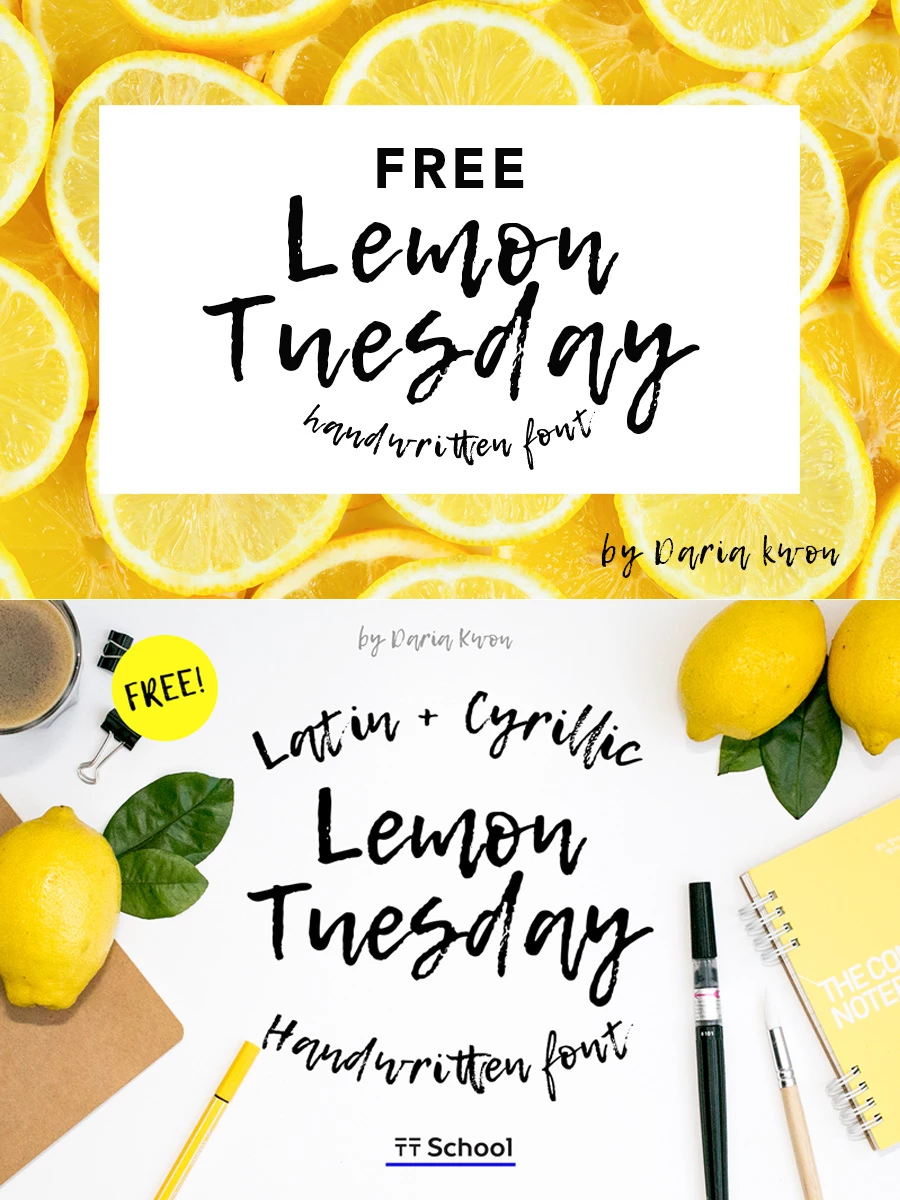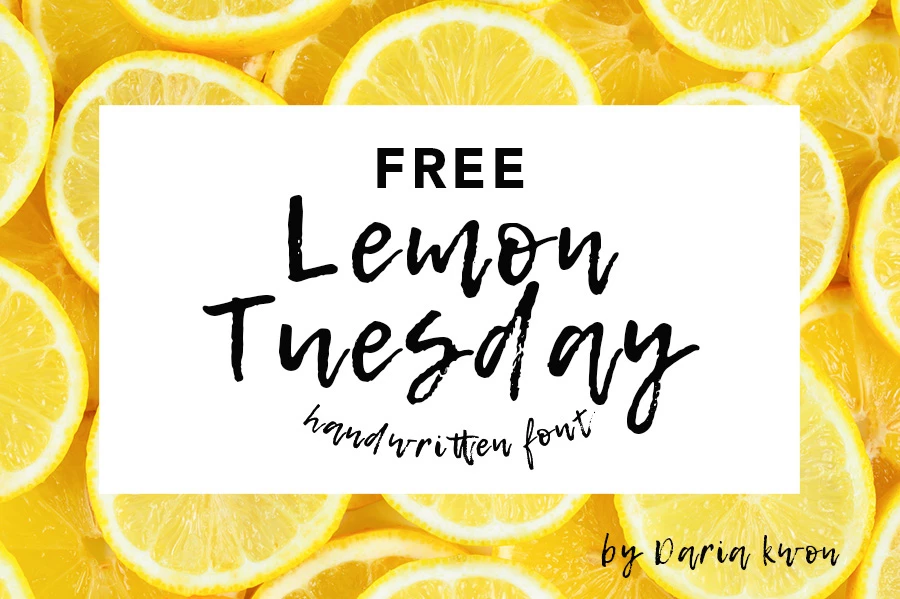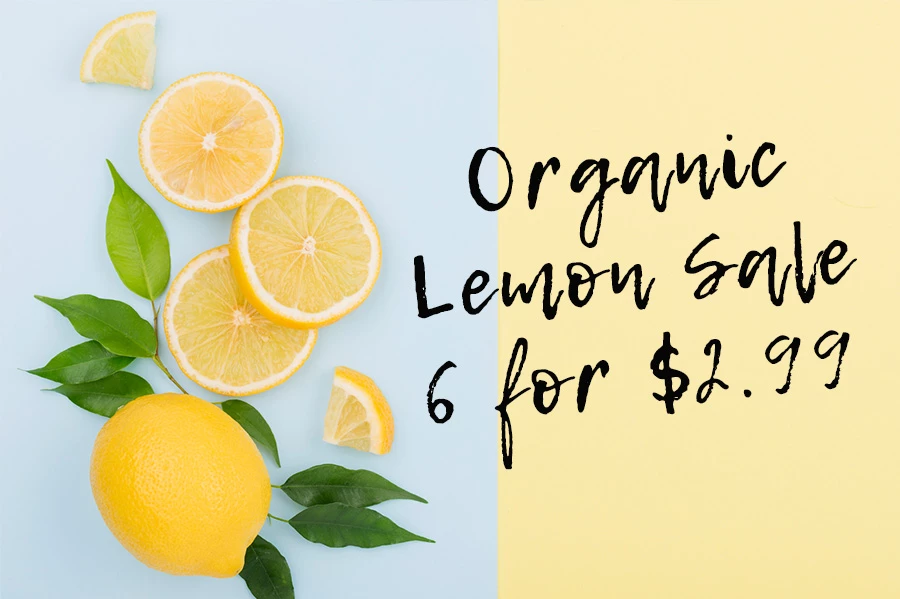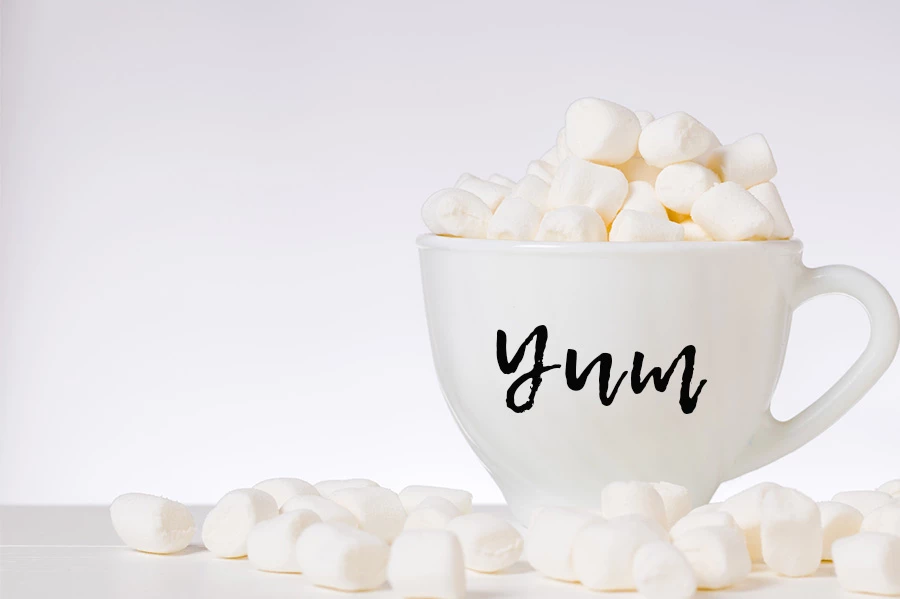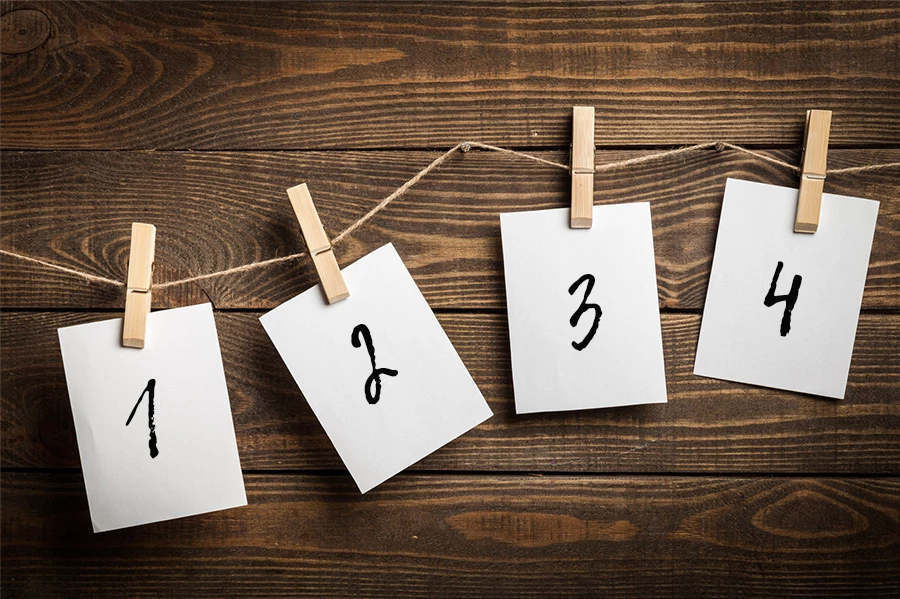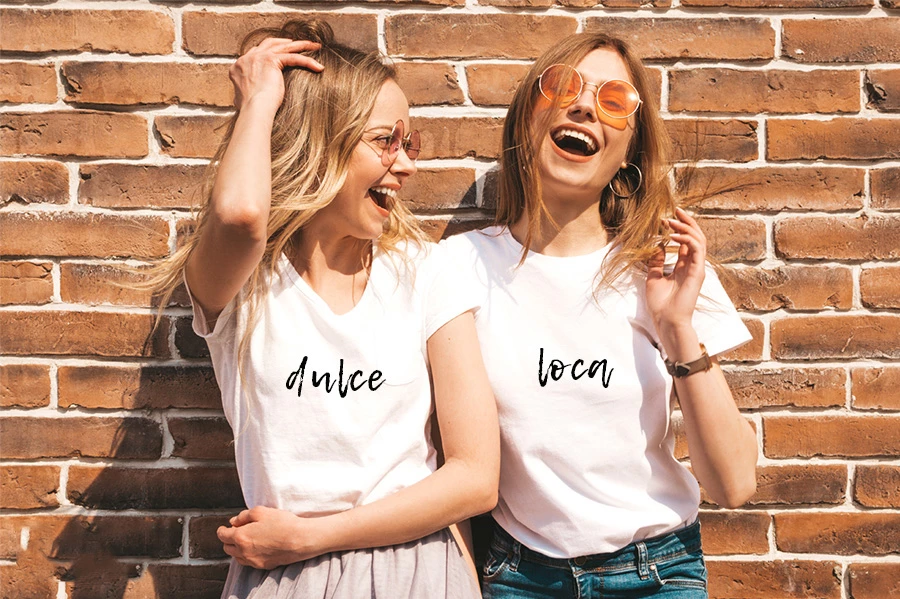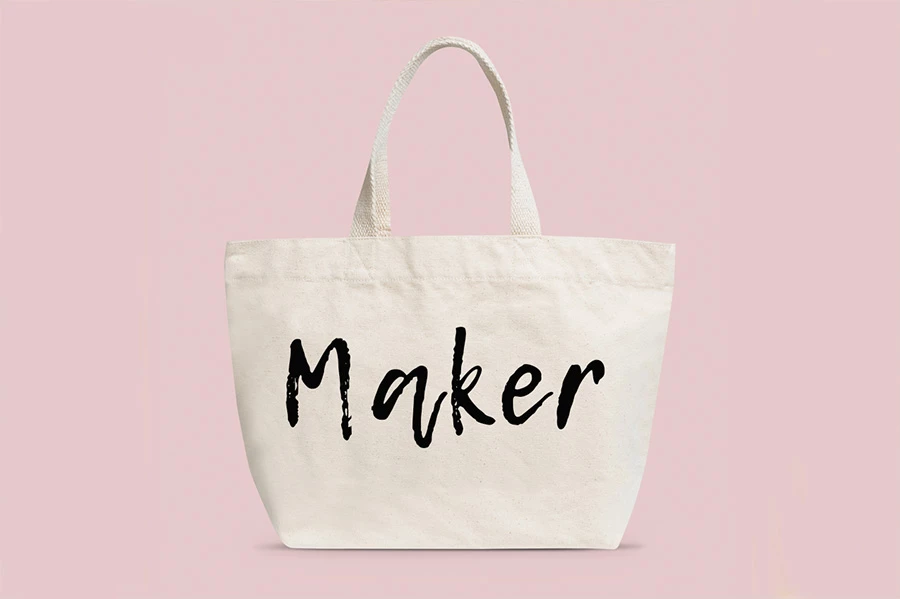
Free Lemon Tuesday Font
It’s a gorgeous handwritten font created by oo (oo) that could be used in multiple ways!Â
Free Handwritten Lemon Tuesday Font